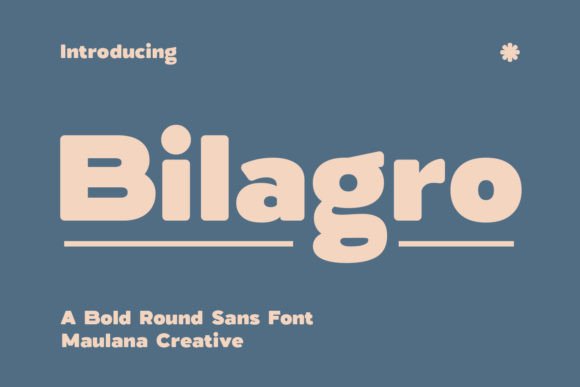
Unleash your creativity with Bilagro, the ultimate display font that captivates and commands attention!
In a world saturated with visual noise, standing out requires a touch of uniqueness, a dash of boldness, and a whole lot of style. Bilagro is your secret weapon in the battle for visual dominance. This modern rounded sans display font is meticulously crafted to make your words dance off the screen, leaving an indelible mark on your audience.
Bilagro is more than just a font; it's an experience. Dive into its myriad possibilities and discover a font that transcends the ordinary. Let your imagination soar as you craft designs that resonate with your audience, leaving them spellbound and eager for more. Whether you're designing captivating logos, eye-catching posters, or dynamic social media graphics, Bilagro is your perfect partner in crime.
With Bilagro, you're not just downloading a font; you're embarking on a creative journey. Unleash your inner artist and explore the boundless possibilities that await you. Let Bilagro be your muse, your guiding light in the vast realm of design.
Bilagro is not just a font; it's an investment in your creative future. Elevate your designs, captivate your audience, and leave a lasting impression. Join the ranks of creative visionaries who have harnessed the power of Bilagro to transform their designs into masterpieces.
Don't settle for ordinary fonts. Embrace the extraordinary with Bilagro. Let your creativity run wild and create designs that ignite imaginations and leave your audience breathless. With Bilagro, the possibilities are endless.